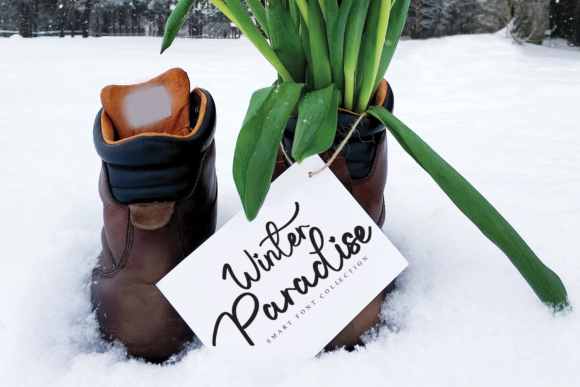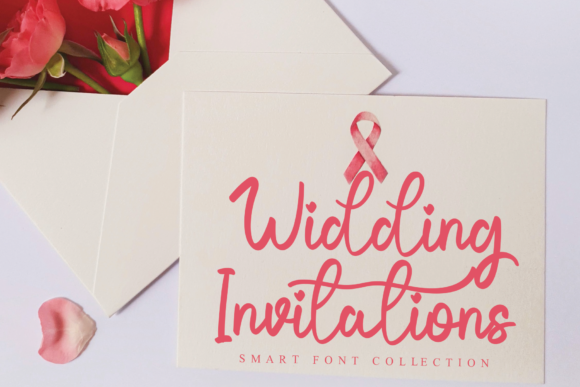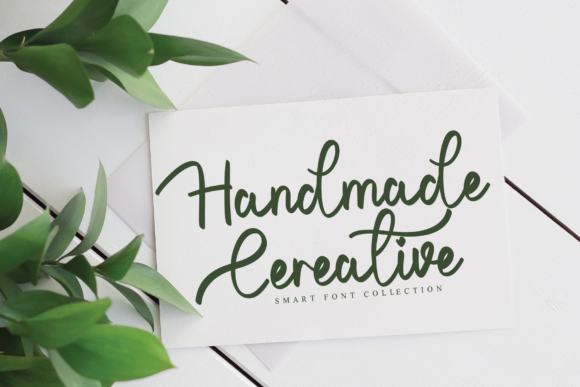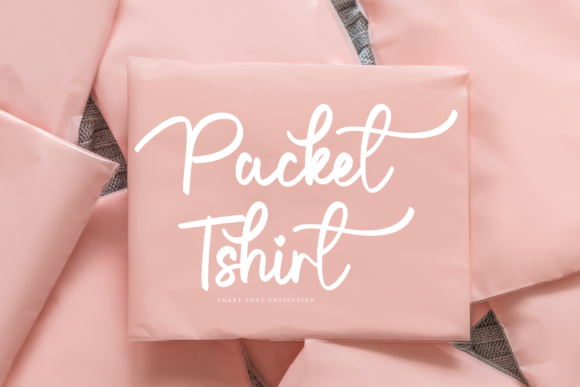
Calligraphy Font
Calligraphy is a beautiful light handwritten font with a unique feel and a stunning impact. It will add a luxury spark to any design project that you wish to create!